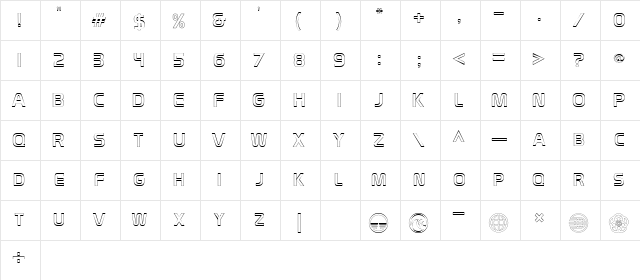
WorldOutline Regular
Design Context for WorldOutline Typeface
WorldOutline brings ornamental detail and strong personality to headlines and identities, where visual impact matters more than quiet functionality.
Font Pairing: Pair with a clean neutral sans-serif for body copy to let WorldOutline's character lead without overwhelming the composition.
Pro Tip: Treat WorldOutline as the centrepiece of your typographic hierarchy. One strong heading set in a decorative face can carry an entire layout.